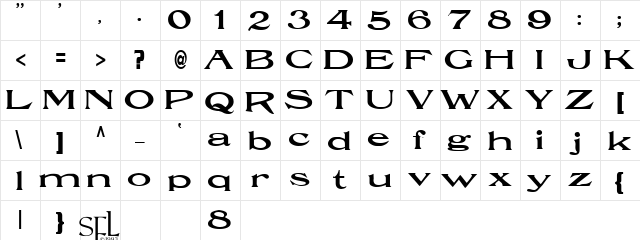
Rue Regular
Design Context for Rue Typeface
Rue offers clean, dependable letterforms without strong stylistic allegiance, making it a practical choice for designers who need flexibility.